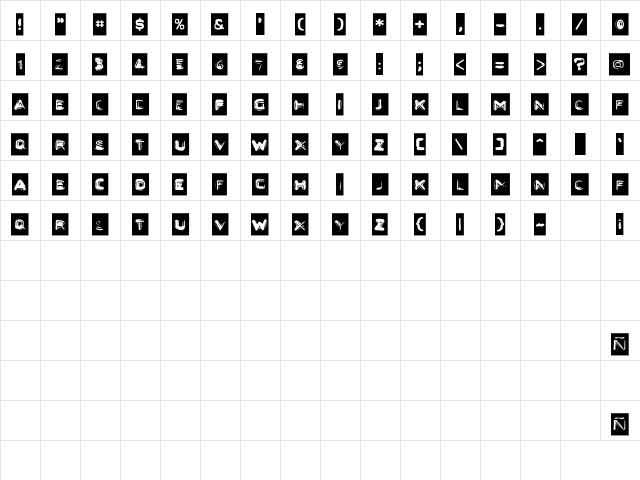
CK Label Maker Regular Free Font
Design Context for CK Label Maker
CK Label Maker is a composed and adaptable typeface that performs quietly and consistently across a wide range of design contexts.